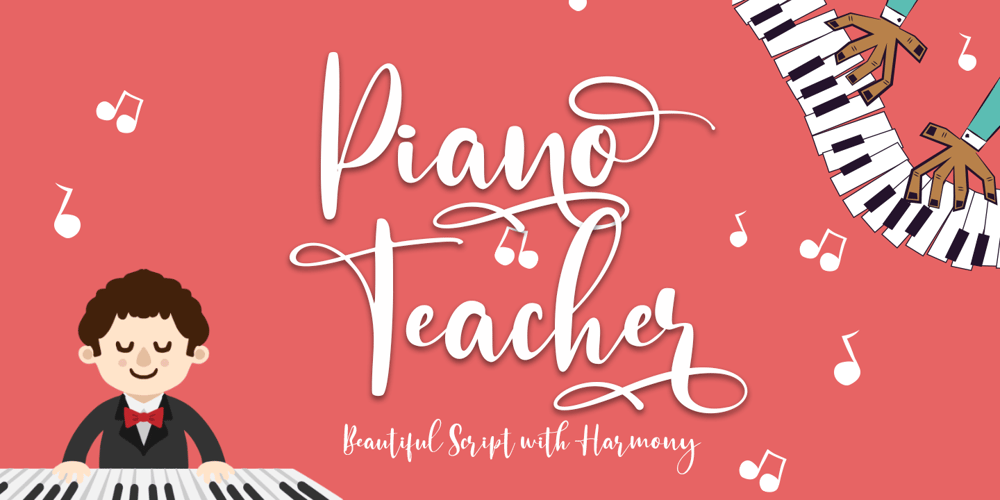
Piano Teacher
Piano Teacher font
Piano Teacher Font Family was designed by Sarwo Edhi Prayitno and published by Haksen. Piano Teacher contains 1 styles and family package options. This font is about fleeting vision, touch of moments. some letters may be illegible, but their shapes arouses emotions. sometimes in design emotions are more important. our brain can uncode the letter shapes.It includes full set of uppercase and lowercase letters, multilingual symbols, numerals, punctuation and ligatures.The font has bold texture.Thanks and have a great day,Haksen Studio